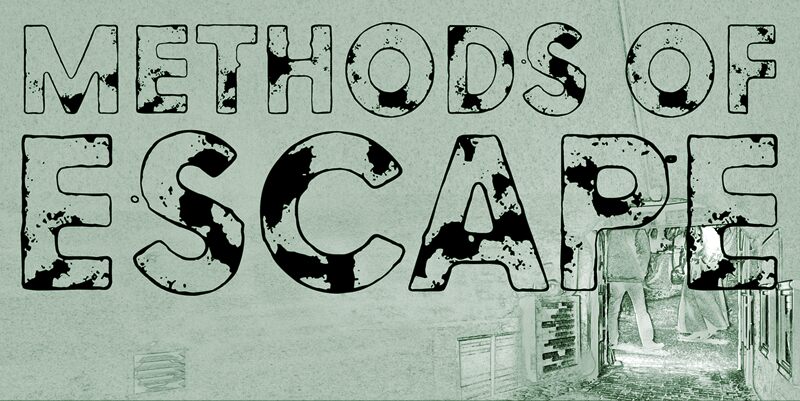
Methods of escape
The Methods of Escape font, designed by junkohanhero, is a captivating display typeface that exudes a sense of weathered resilience. Its eroded aesthetic evokes a rugged, industrial charm, inviting the viewer to explore the depths of its textured forms. The bold, angular letterforms convey a sense of strength and determination, while the asymmetrical details lend a dynamic, almost kinetic energy to the overall composition.
This versatile font can elevate a wide range of design projects, from edgy branding and packaging to dynamic editorial layouts. Its distinctive character makes it a compelling choice for creating impactful headlines, subheadings, and attention-grabbing visual elements that command attention and leave a lasting impression.